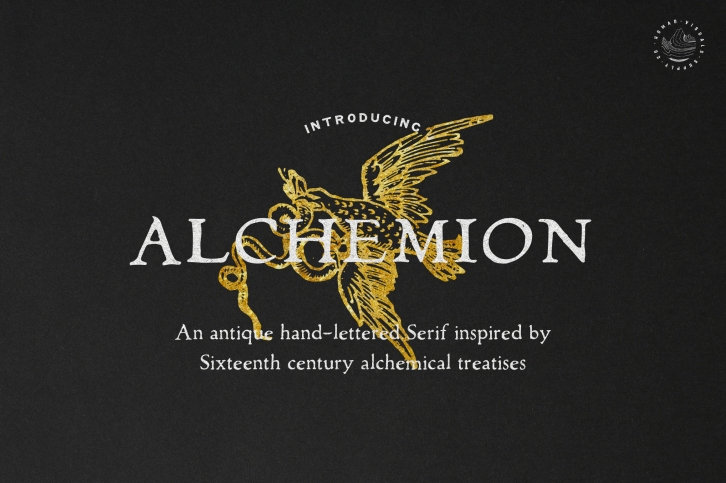
Alchemion Display Serif is a great font that was designed by Nomad Visuals. Imagine the amount of combinations you can create using this font! The archive is 8.97 MB and it was released on February 5, 2019. Alchemion Display Serif looks beautiful on wedding invitations, greeting cards, logos, posters, labels, t-shirt designs, logos, business cards and is perfect for use in ink or watercolor works, fashion, magazines, packaging and food menus, children's books and more!